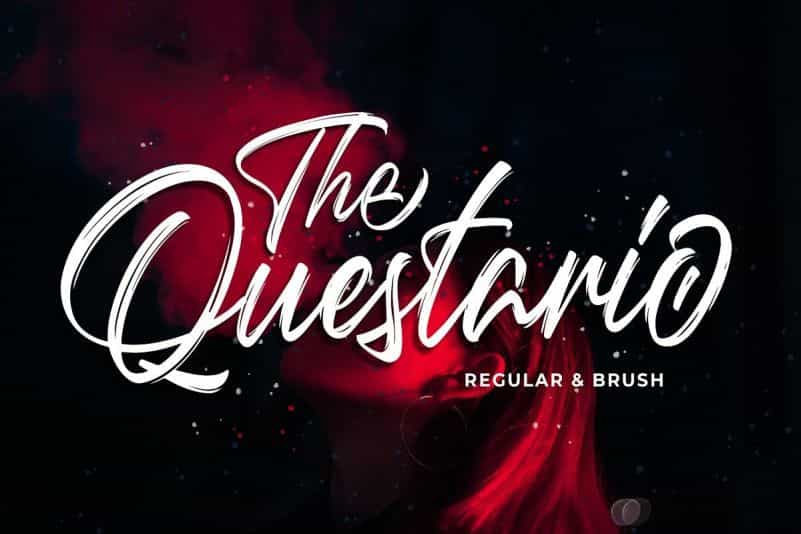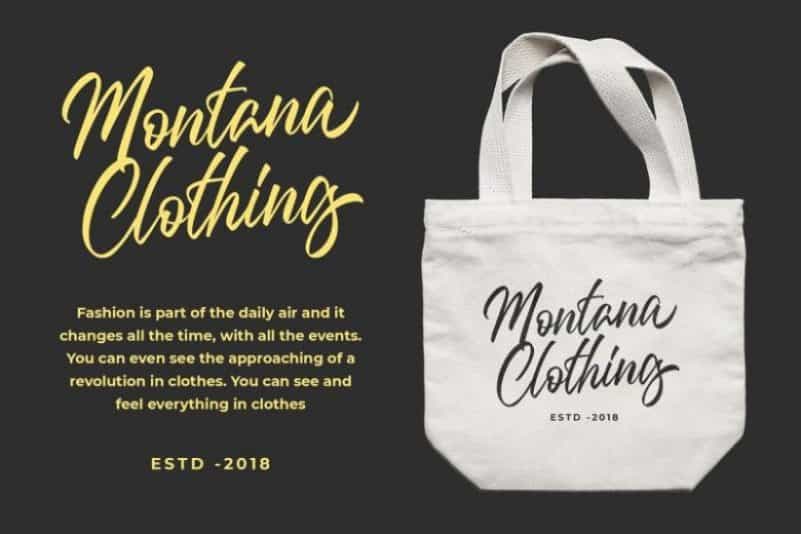
I hope you have enjoyed looking at the Questario Font. This is new type brush, a handwritten font with unique and strong strokes made with high definition paint texture. Questario Brush Style is based on Brush calligraphy font that is charming and mesmerizing, yet it is very contemporary.